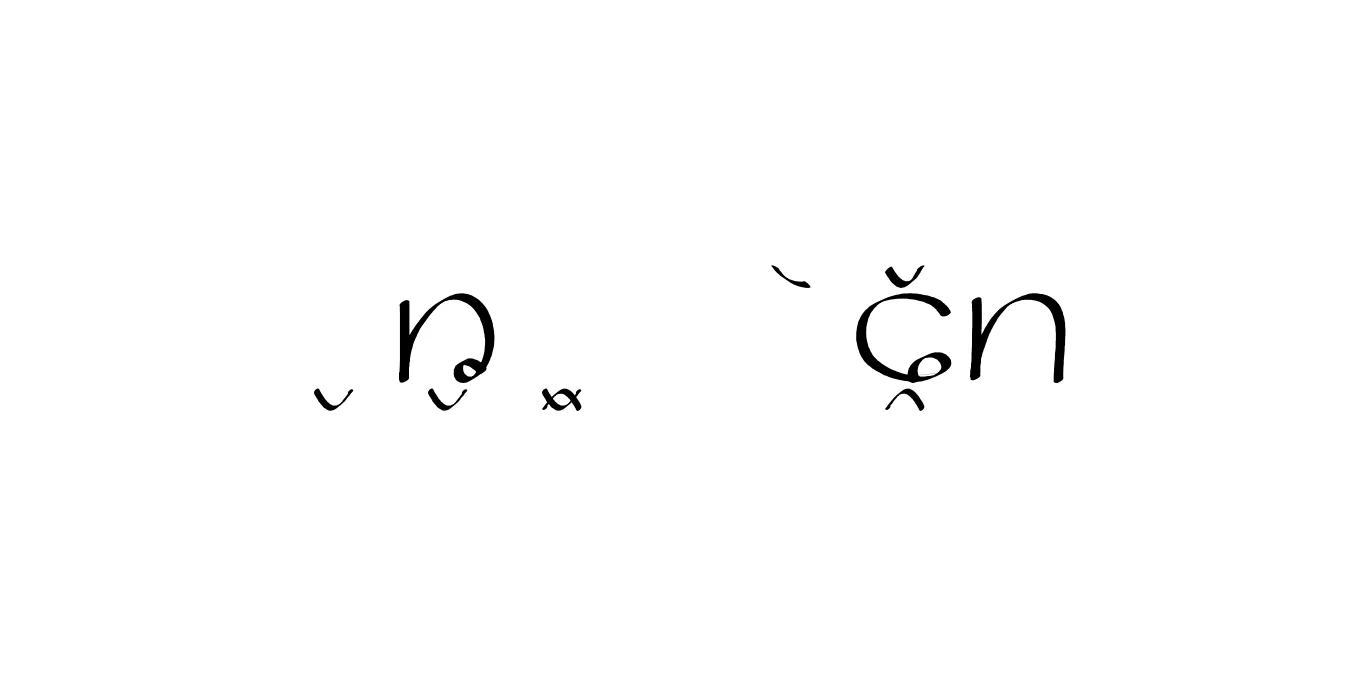
PanaKai Medium
Designed by Stiggy & Sands
| Category | Flared Sans-Serif |
PanaKai Medium is a sophisticated flared sans-serif typeface that draws deep inspiration from the mid-century modern aesthetic of the Pacific Islands. It captures the spirit of 1950s Hawaiian resort signage, blending structural geometric foundations with elegant, subtle flares at the stroke terminals. This unique combination creates a look that is both nostalgic and contemporary, making it a versatile choice for designers looking to evoke a sense of high-end travel and tropical luxury.
Developed as part of a larger family, the Medium weight offers an ideal balance between legibility and character. It excels in display environments where its sharp details and balanced proportions can shine. Whether used for evocative branding or editorial headlines, PanaKai Medium brings a refined, exotic flair to any project, effectively bridging the gap between casual island vibes and professional graphic design standards.
PanaKai Medium Best Uses
Ideal for luxury resort logos and tropical lifestyle brands.
Perfect for high-end cocktail bar or restaurant menus.
Great for travel magazines and summer-themed editorial layouts.
Adds an exotic touch to premium food or beverage products.